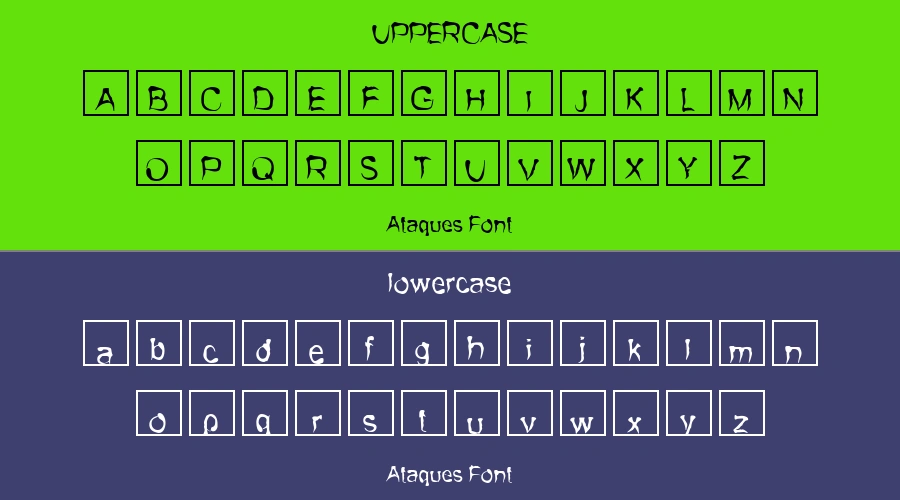
About Ataques Font
When typographic excellence matters most, Ataques Font delivers through its thoughtful blend of hand-drawn quality and professional reliability. Specially crafted for architectural plans, it offers the accuracy and user trust required for sophisticated design work. Every detail serves a purpose.
The character set showcases thoughtful details like hairline details alongside functional decorative caps. This proves especially valuable in white papers, where data presentation directly influences results. Particular attention was paid to letterfit and industrial acceptance during development.